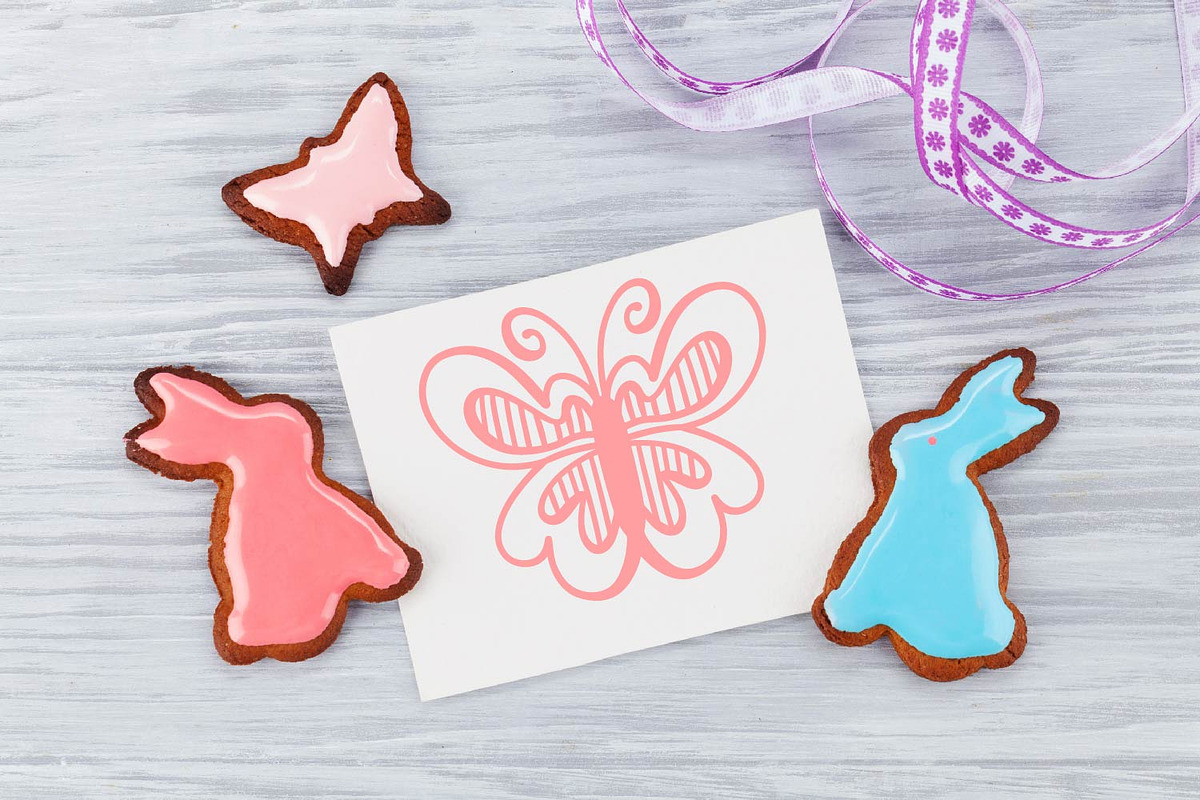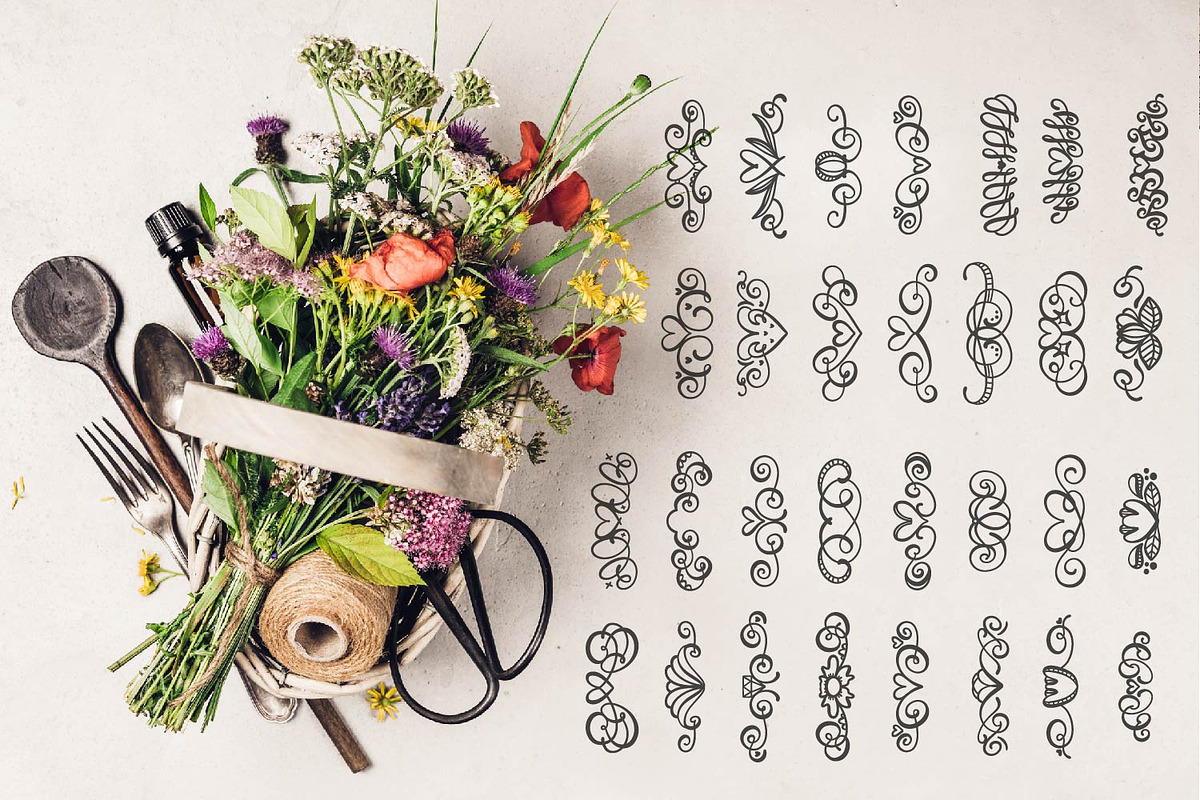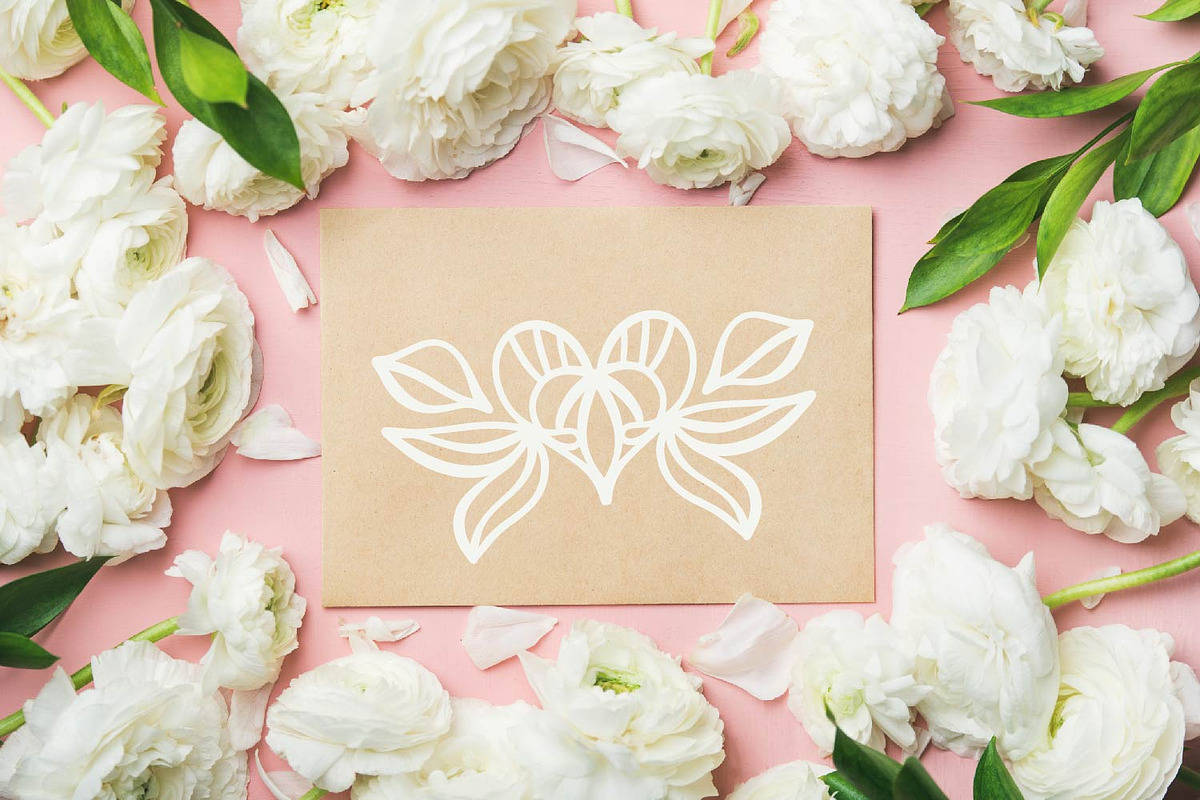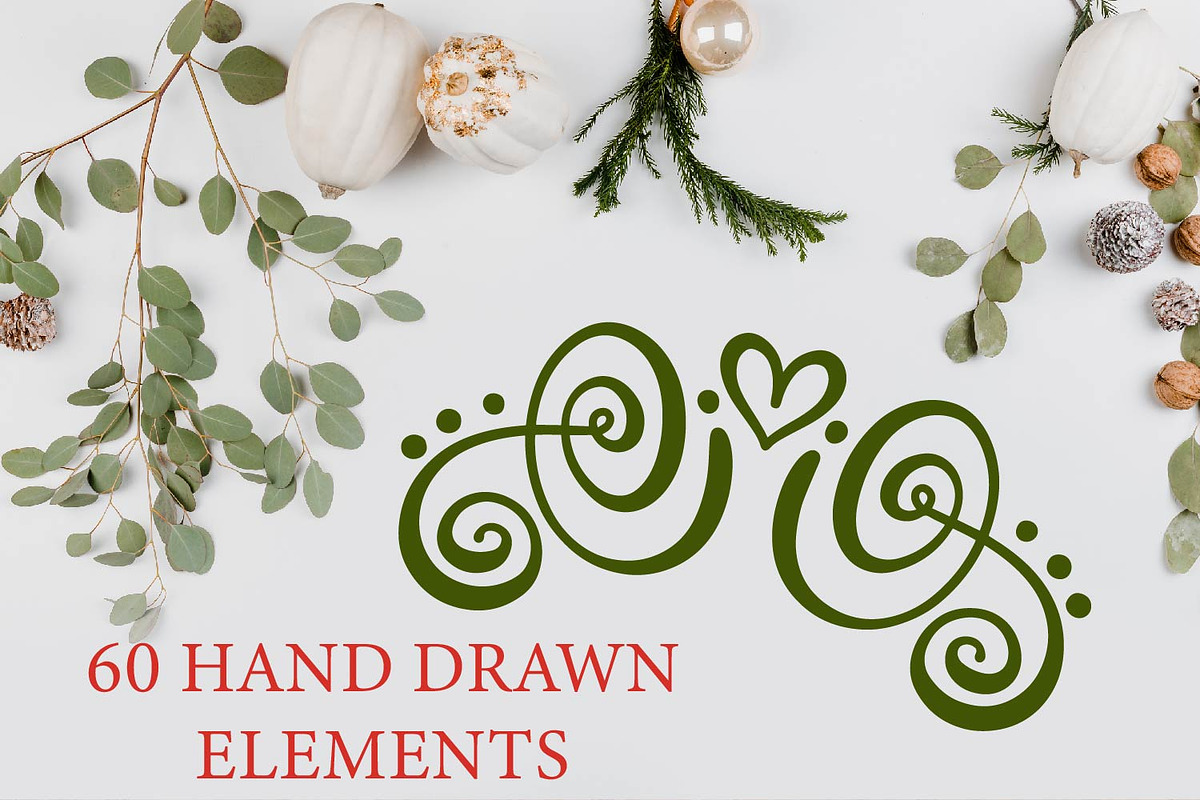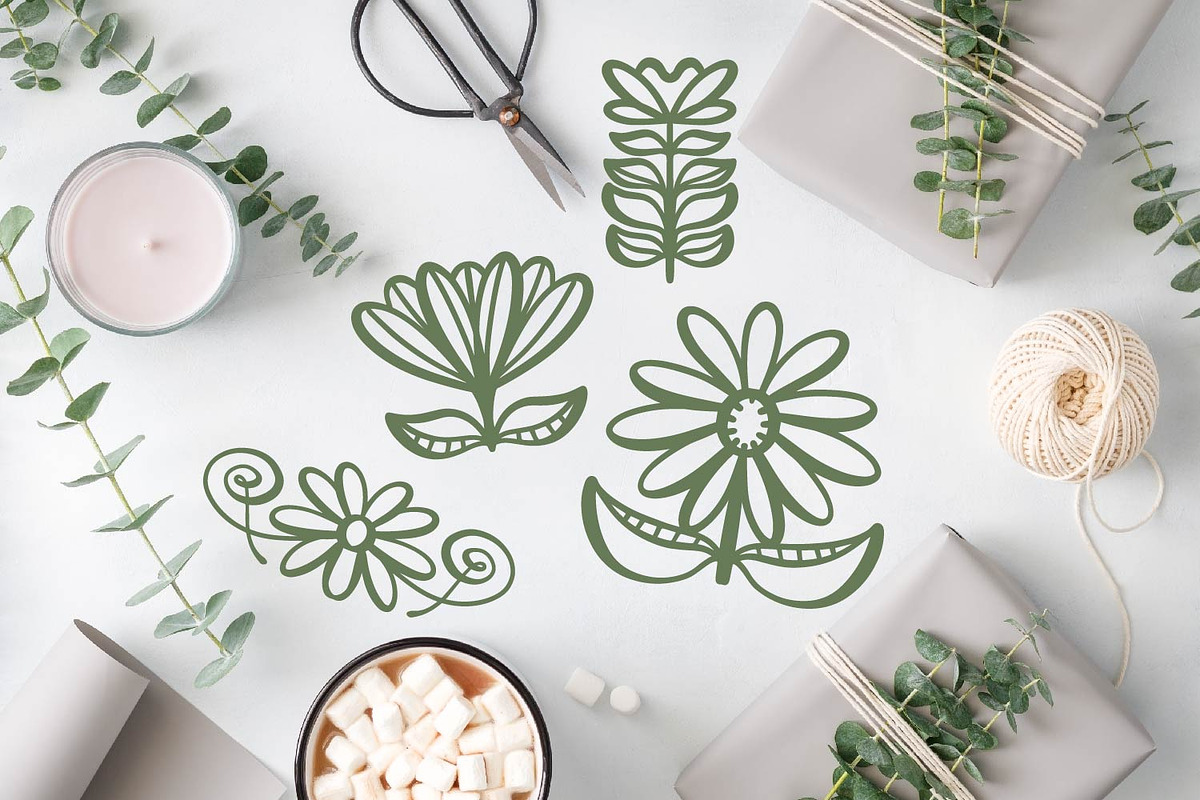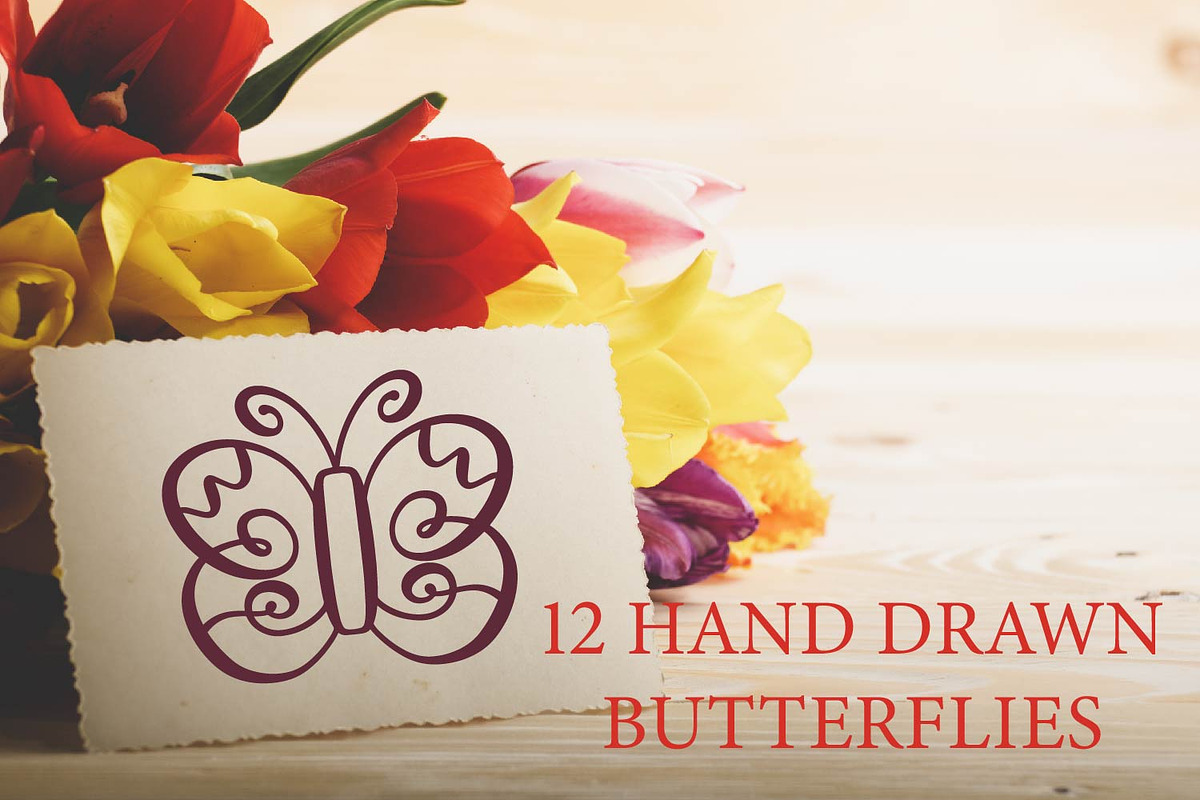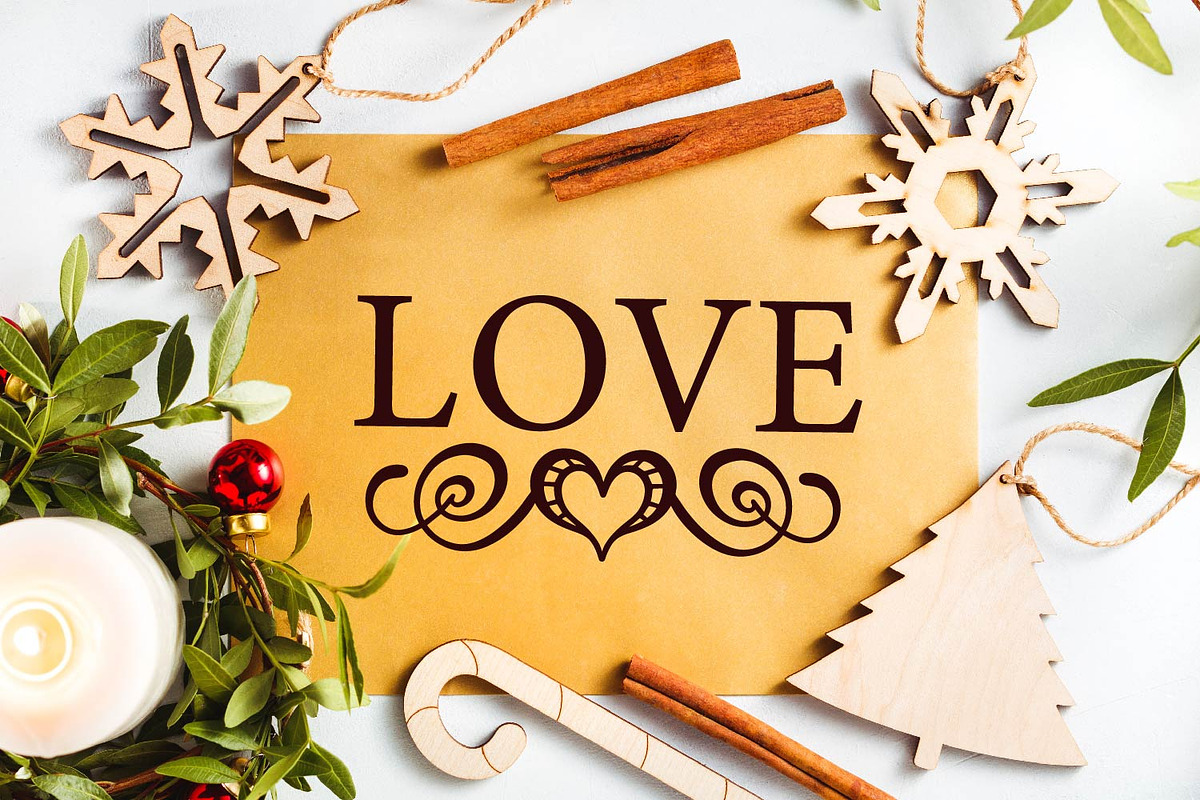
Spring Flourishes - Ornament Font
Spring Flourishes Ornament Font by CraftyLittleNodes is a font selected for branding, posters, packaging, typography.
Why Spring Flourishes - Ornament Font is worth a look
Spring Flourishes - Ornament Font by CraftyLittleNodes fits naturally into Branding, posters, packaging, typography.